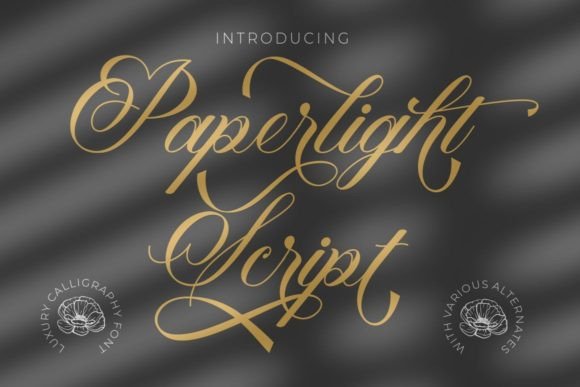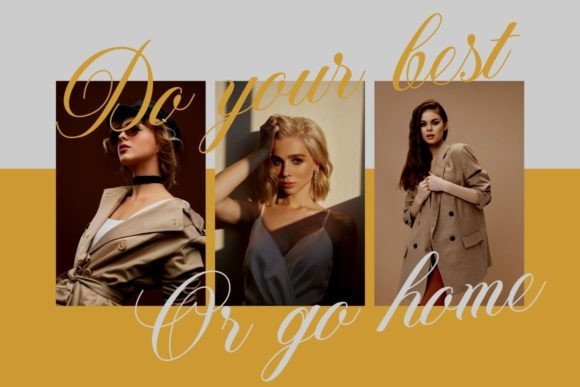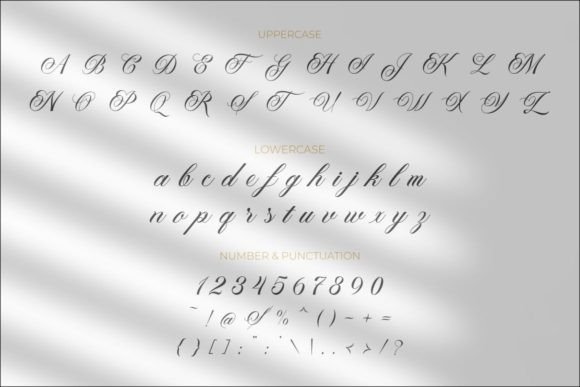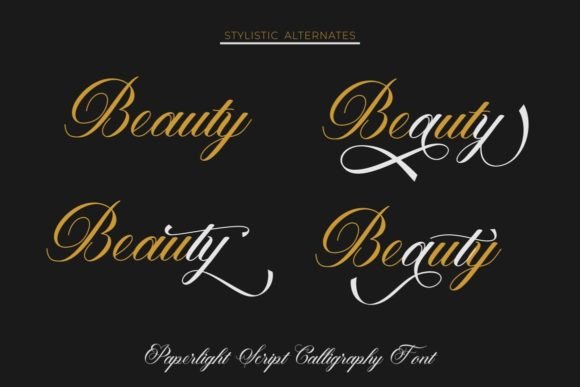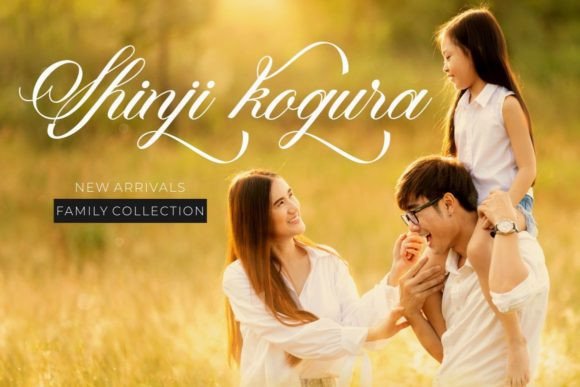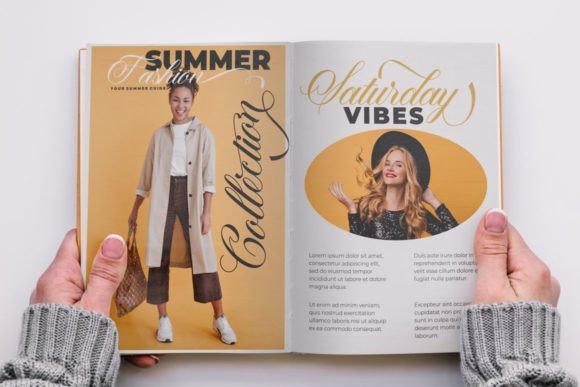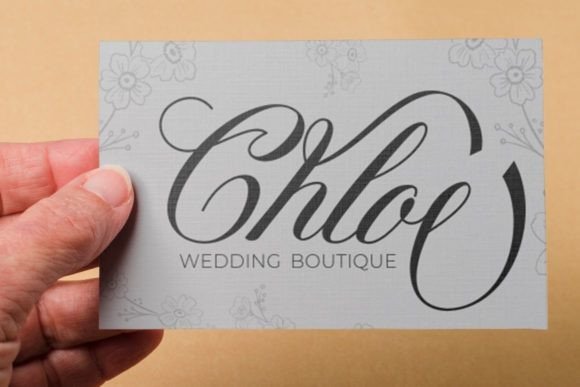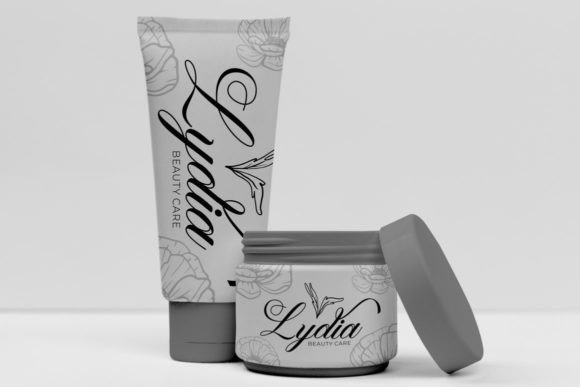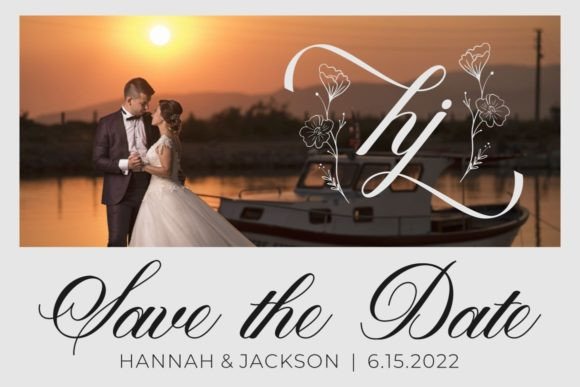
Paperlight Script Font
“Paperlight Script” is a captivating and delicate handwritten font that combines beauty with a unique charm, resulting in a font that leaves a stunning impact. This versatile typeface is perfect for a wide range of design projects, and its distinctive qualities can add a touch of luxury to your creative endeavors.
The allure of “Paperlight Script” lies in its ability to convey a sense of elegance and uniqueness. Each character is thoughtfully crafted, and the font as a whole exudes a feeling of refinement and sophistication. Imagine using “Paperlight Script” for a high-end wedding invitation, where the font’s delicate and light handwritten style enhances the romantic atmosphere of the event.
For quotes, greeting cards, branding, product packaging, and a variety of design applications, “Paperlight Script” adds a touch of class and beauty that elevates your content. It possesses a timeless quality that can make your projects feel truly special.
In summary, “Paperlight Script” is more than just a font; it’s a design asset that brings elegance and uniqueness to your creative work. Its light handwritten style and versatility make it suitable for a variety of applications, and its ability to convey sophistication and beauty sets it apart. With “Paperlight Script” in your font collection, your design projects will exude a sense of timeless luxury and elegance that leaves a lasting impression.